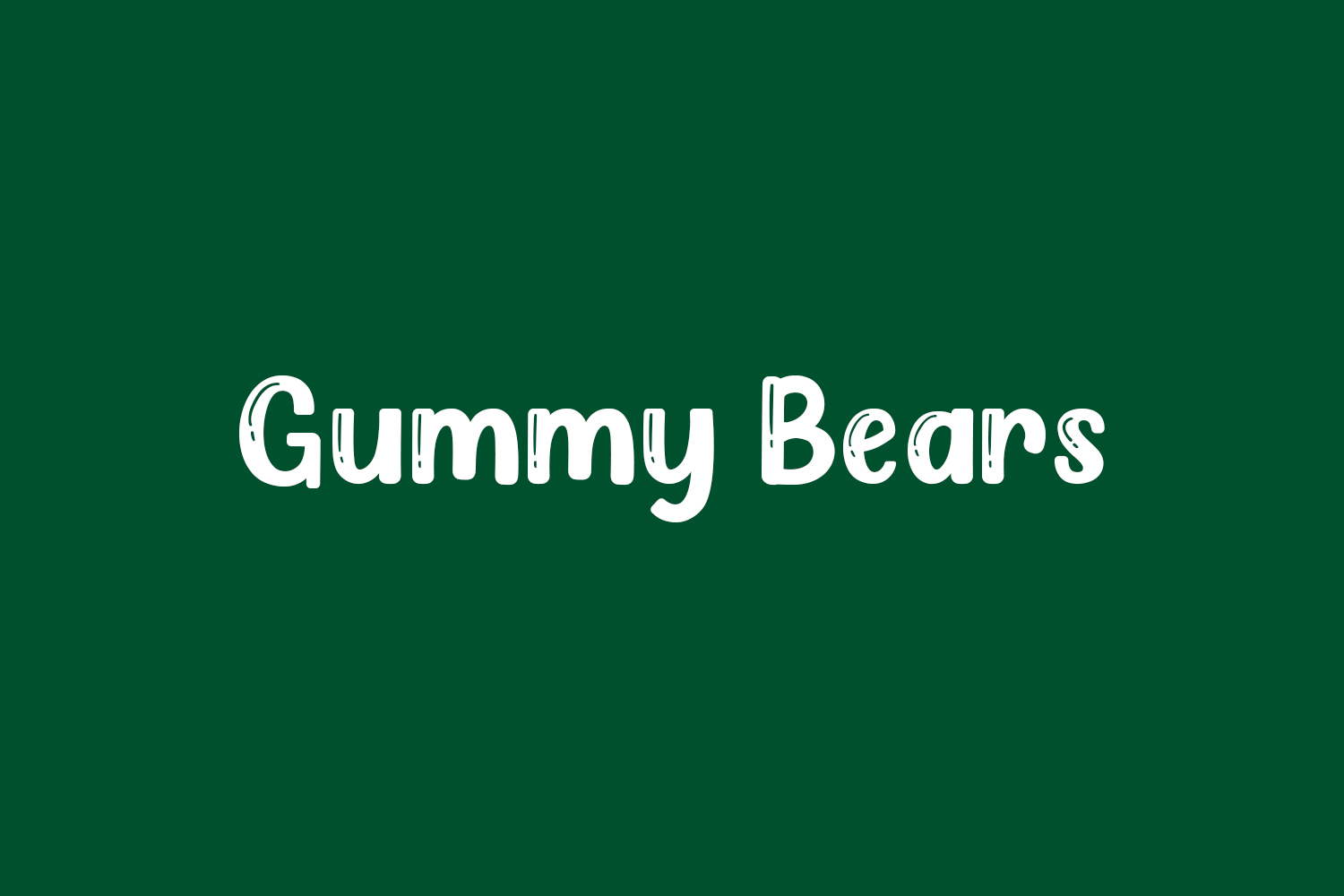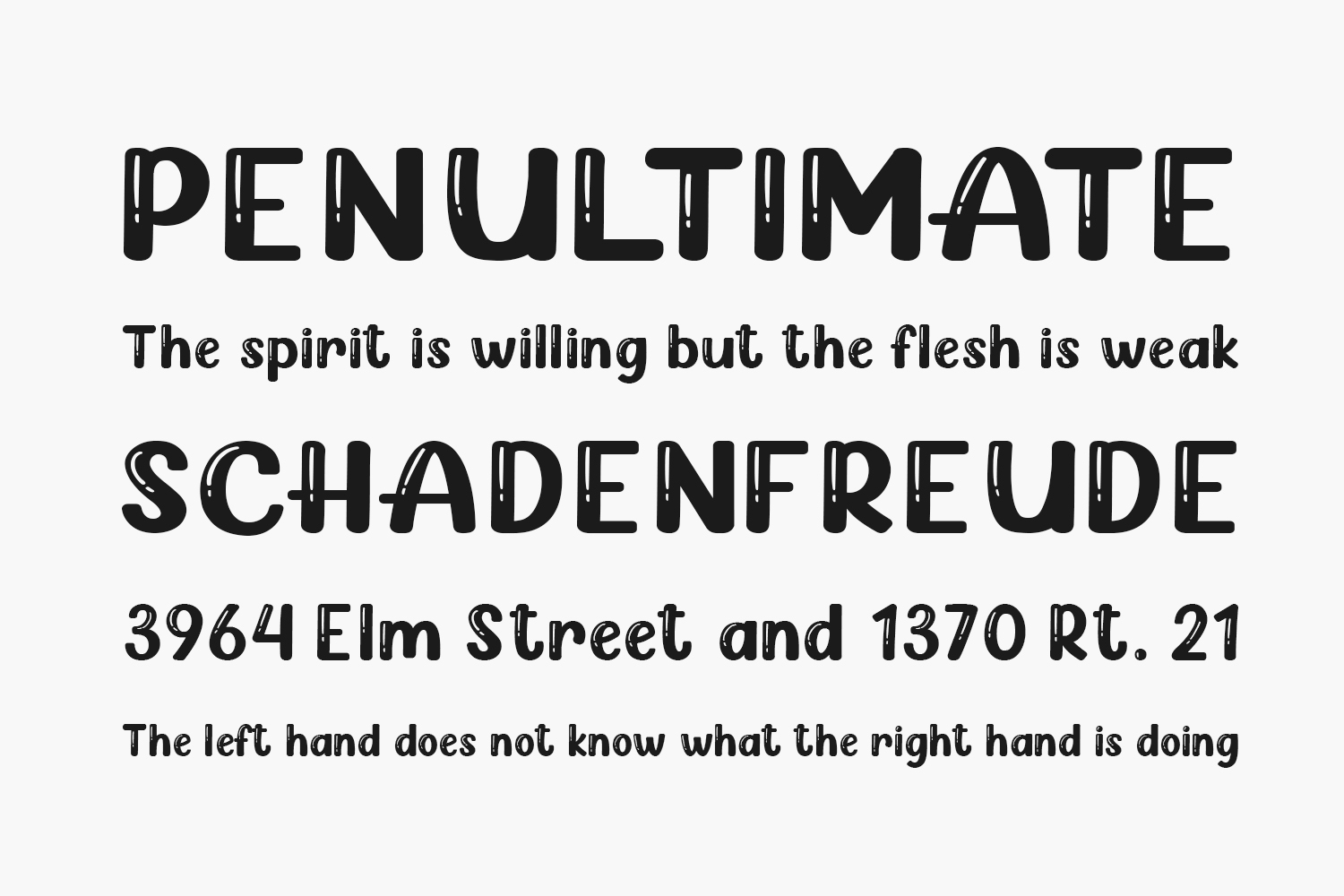
Gummy Bears Free Font is a cool and playful display font. No matter the topic, this font will be an incredible asset to your fonts’ library, as it has the potential to elevate any creationwas designed by Manjali Studio and is free for personal use only. Please purchase the full version for commercial use.